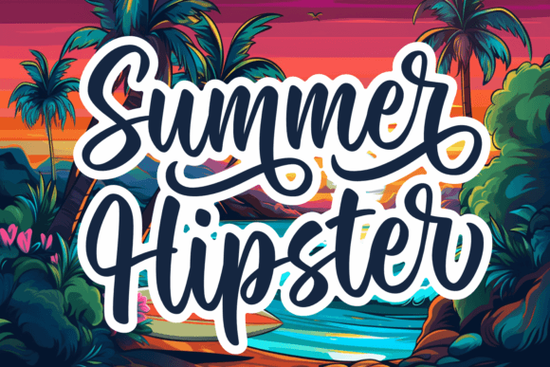
If you’ve been looking for a handwritten font that feels cheerful and effortlessly stylish, the Summer Hipster Font might be exactly what your next project needs. It’s got that laid-back, happy vibe like sunshine in letterform and works well whether you’re designing greeting cards, branding materials, or even wedding invites. The strokes feel natural, not stiff, which makes it great for projects where you want to keep things friendly and approachable.
What sets this script apart is how many extra glyphs and ligatures come built in. Since it’s PUA encoded, you don’t need to jump through hoops to access those special characters just open your design software and start typing. That’s especially helpful if you’re layering text over photos or creating social media graphics where little stylistic flourishes can make a big difference.
Who should use Summer Hipster Font?
This font isn’t just for one type of creator. If you run a small business and need packaging labels that pop with personality, it’s a solid pick. Print-on-demand sellers will love how well it pairs with pastel backgrounds or beachy themes try it alongside something like Pink Pastel for a soft, summery combo. Crafters making custom vinyl decals or planners? You’ll appreciate how readable it stays even at smaller sizes.
Wedding designers often look for fonts that feel personal without being overly formal. Summer Hipster walks that line nicely playful enough for save-the-dates but still clean enough for seating charts. And if you’re into branding, pairing it with a minimalist sans-serif (like Alignment) creates contrast that draws the eye without clashing.
How does it compare to other handwritten fonts?
Not all script fonts are created equal. Some feel too rigid, others too messy. Summer Hipster lands in that sweet spot casual but intentional. Compare it to Hello, which leans more toward bubbly and childlike, or Hailey, which has a more elegant, calligraphic flow. Summer Hipster sits right in the middle: upbeat, legible, and full of character without trying too hard.
One thing users often notice is how well it scales. Whether you’re printing it large on a poster or small on a sticker, the details hold up. That’s thanks to clean vector outlines and thoughtful kerning. And because it includes alternate characters, you can mix things up so your headlines don’t look repetitive a subtle trick that adds polish without extra effort.
What kinds of projects work best with this font?
- Branding – Coffee shops, boutiques, lifestyle blogs. Anything that wants to feel welcoming and modern.
- Packaging – Soap labels, candle jars, snack bags. The hand-drawn look suggests artisan quality.
- Invitations – Birthdays, baby showers, weddings. Especially good for outdoor or garden-themed events.
- Social Media Graphics – Quotes, announcements, promos. The bounce in the letters grabs attention without shouting.
- Merchandise – T-shirts, tote bags, mugs. Works great as a standalone phrase or paired with icons.
A quick tip before you start
When using script fonts like this, avoid cramming too much text into one space. Let each word breathe. Pair it with generous line spacing and simple backgrounds think white, kraft paper, or soft gradients. And if you’re layering it over an image, add a subtle drop shadow or stroke outline so it stays readable.
You might also experiment with color. While it looks lovely in black or charcoal, try dusty rose, sage green, or sky blue to match the mood. For seasonal designs, pair it with illustrations of palm trees, sunglasses, or ice cream cones it naturally complements those themes.
If you like the vibe but want to explore more options, check out this collection it’s curated with fonts that share the same playful-but-polished energy. You’ll find alternatives that vary slightly in weight, bounce, or slant, so you can pick the one that fits your exact project tone.
And if you’re new to working with PUA-encoded fonts, don’t worry most modern design tools (Canva, Adobe apps, Affinity, etc.) support them out of the box. Just make sure you’re selecting the correct OpenType features or glyph panels to unlock the extras.
- ✅ Avoid using all caps this font shines in lowercase or title case.
Whether you’re refreshing your shop’s branding or adding charm to a weekend craft project, Summer Hipster Font brings warmth and personality without overwhelming your layout. Sometimes, the right font doesn’t need to shout it just needs to smile.